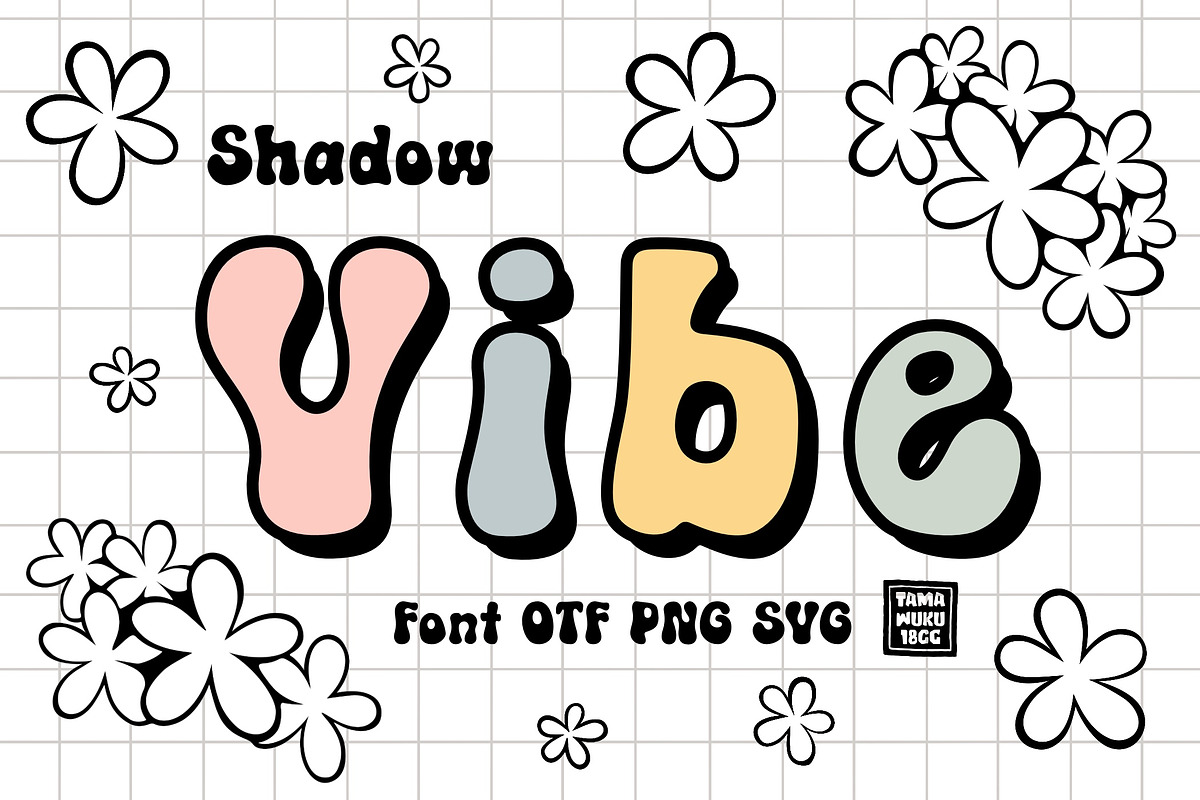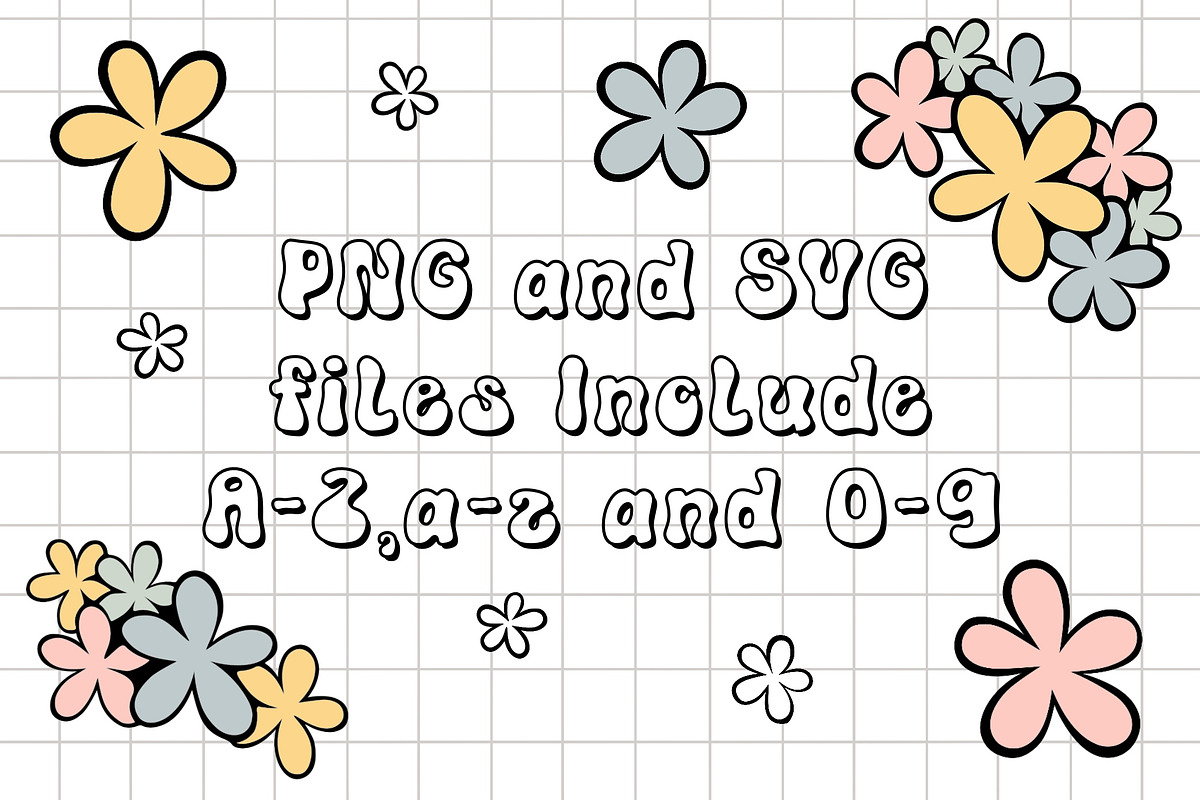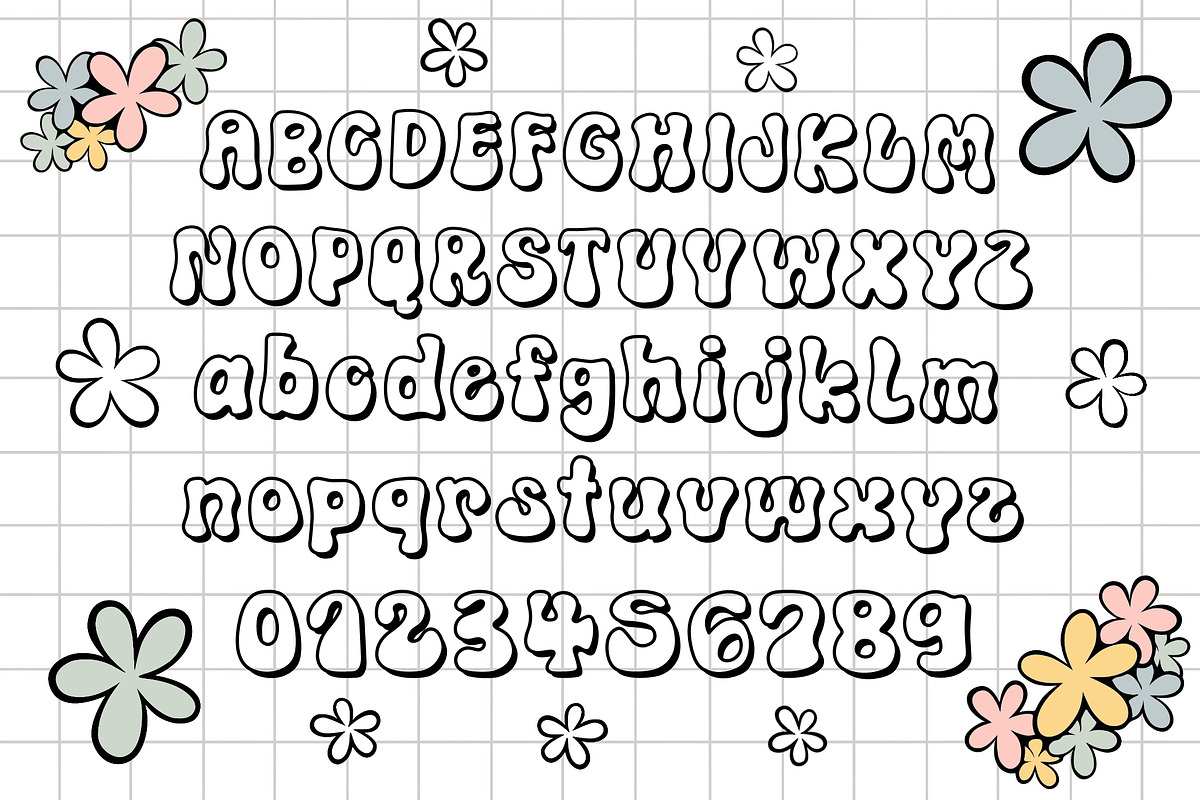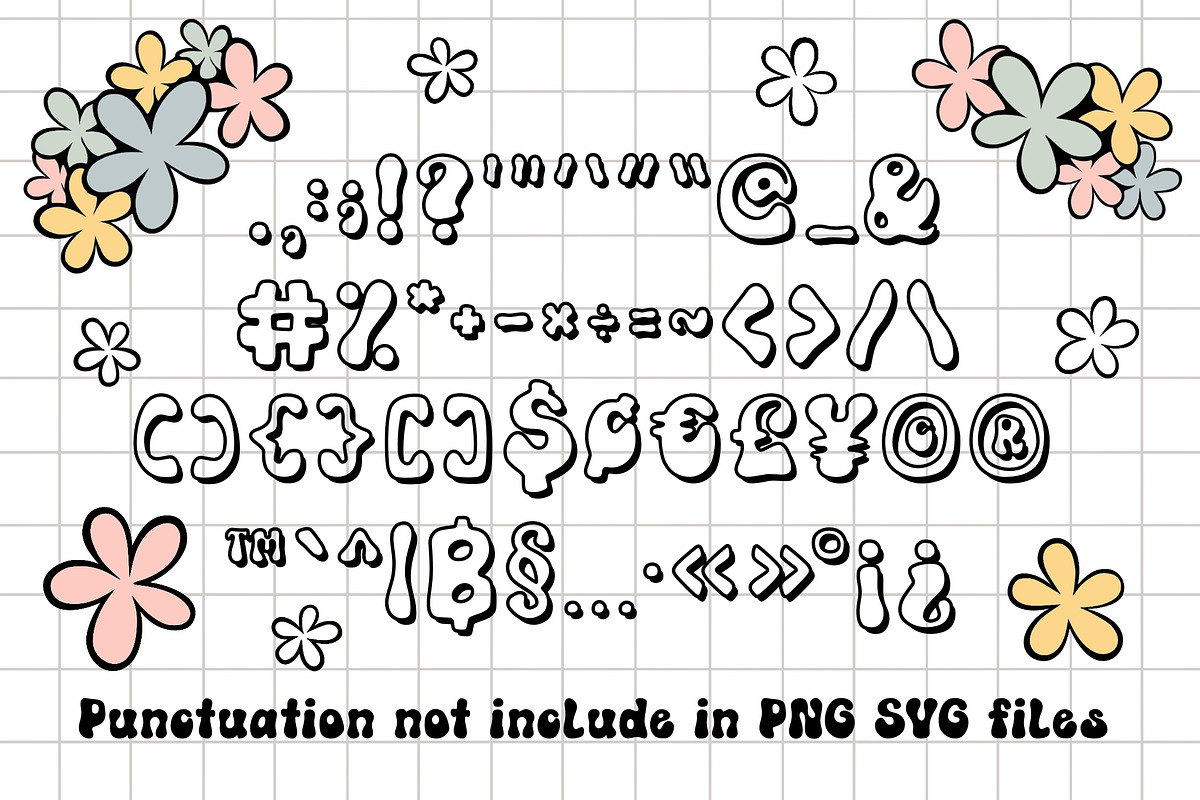
Vibe Shadow OTF PNG SVG
Vibe Shadow is an exuberant outline and shadow font that will fill your designs with cheerfulness! Use it on covers, posters, marketing materials, coloring book, or anything that needs to pop!